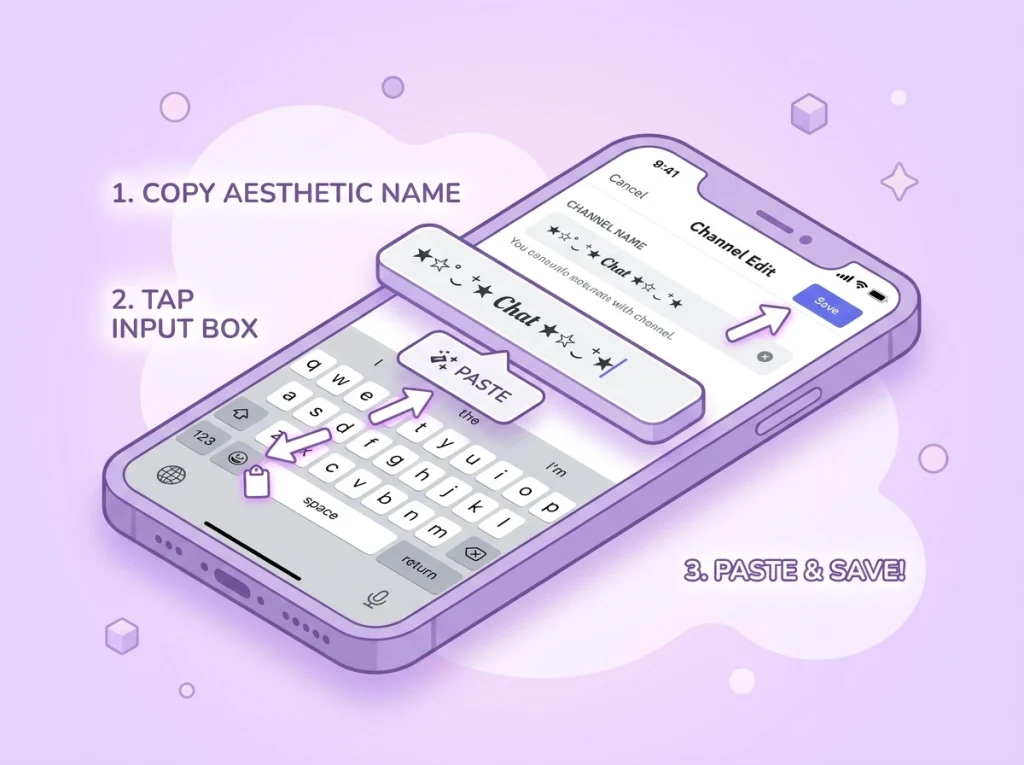
Discord Aesthetic Font: How to Get Stylish Bio and Server Names (2026)
If you spend any time on Discord, you already know that the default text settings can feel incredibly repetitive. Whether you are setting up a cozy community hub, a gaming clan base, or just tweaking your personal profile, using a discord aesthetic font is the absolute best way to break away from the standard formatting and inject real personality into your digital space.
Discord Aesthetic Font
Customizing your profile isn’t just about looking cool; it is about establishing a clear visual identity. With millions of active users on the platform, standard text blends into the background. Switching up your typography catches the eye instantly, helping your community or personal brand stand out in a crowded sidebar.
Why Standard Discord Fonts Feel So Limited
By default, Discord relies on a clean but rigid font family (primarily Uni Sans and Whitney) to keep the interface legible across desktop and mobile apps. While this is great for reading fast-paced chat logs, it gives you zero built-in options to change text styles in your bio, channel names, or nickname.
To bypass this restriction, the internet relies onΒ Unicode characters. When you use a specialized typography tool, it doesn’t actually change the font aesthetics file inside Discord. Instead, it swaps regular English letters for unique mathematical symbols and alphabetic characters that look like stylized text. Because these symbols are universally recognized by modern operating systems, they display perfectly on Windows, Mac, iOS, and Android without breaking the application.
How to Generate and Use a Discord Aesthetic Font
Step 1: Generate Your Custom Typography
Open your favorite online aesthetic text generator. Type the exact phrase, username, or channel name you want to convert into the input box. The tool will instantly convert your plain text into dozens of variations, including cursive, bold script, gothic, tiny caps, and double-struck lettering.
Step 2: Copy and Test the Output
Scroll through the generated styles and select the one that matches your personal or server theme. Click copy. Before pasting it into a live server title, it is a smart habit to paste it into a private DM or a personal testing channel. This ensures all the special symbols render correctly on your current device.
Step 3: Update Your Profile or Server Settings
Best Styles for Bios, Usernames, and Servers
Not all text styles serve the same purpose. Choosing the right vibe depends heavily on what part of the app you are customizing. Here is a curated guide to styles that are highly effective in modern layouts:
π™Όπš˜πš—πš˜πšœπš™πšŠπšŒπšŽ &Β πšƒπš’πš™πšŽπš πš›πš’πšπšŽπš›
Perfect for clean channel names, developer bios, or highly structured status updates. It has maximum compatibility across all devices.
πŸ„±πŸ„ΎπŸ…‡πŸ„΄πŸ„³ &Β πŸ…‚πŸ…€πŸ…„πŸ„°πŸ…πŸ„΄πŸ„³
Ideal for server category headers or technical channel names. It looks incredibly structured, solid, and neat.
π”Šπ”¬π”±π”₯𝔦𝔠 & 𝔒𝔩𝔑 π”ˆπ”«π”€π”©π”¦π”°π”₯
Highly popular among gaming communities, dark-themed servers, and clan names. It gives off a powerful, classic vintage aesthetic.
SMALL CAPS FORMAT
Excellent for subtle, minimalist formatting where you want a clean look without looking overly chaotic or cluttered.
Important Rules for Accessibility and Search
While decorating your text is incredibly fun, going overboard can ruin the user experience for your friends or community members. Keep these crucial tips in mind to balance style with functionality:
• Moderation Concerns:Β If you are a server owner, forcing users to keep their nicknames readable makes it much easier for staff members to tag (@) them during moderation or support issues.
Final Thoughts
Using a distinct typography style completely changes how people perceive your digital presence. By picking the right style, avoiding over-cluttered symbols, and keeping accessibility in mind, you can craft a stunning layout that looks incredibly professional. Find a style that speaks to you, update your profile, and give your space a completely fresh look.